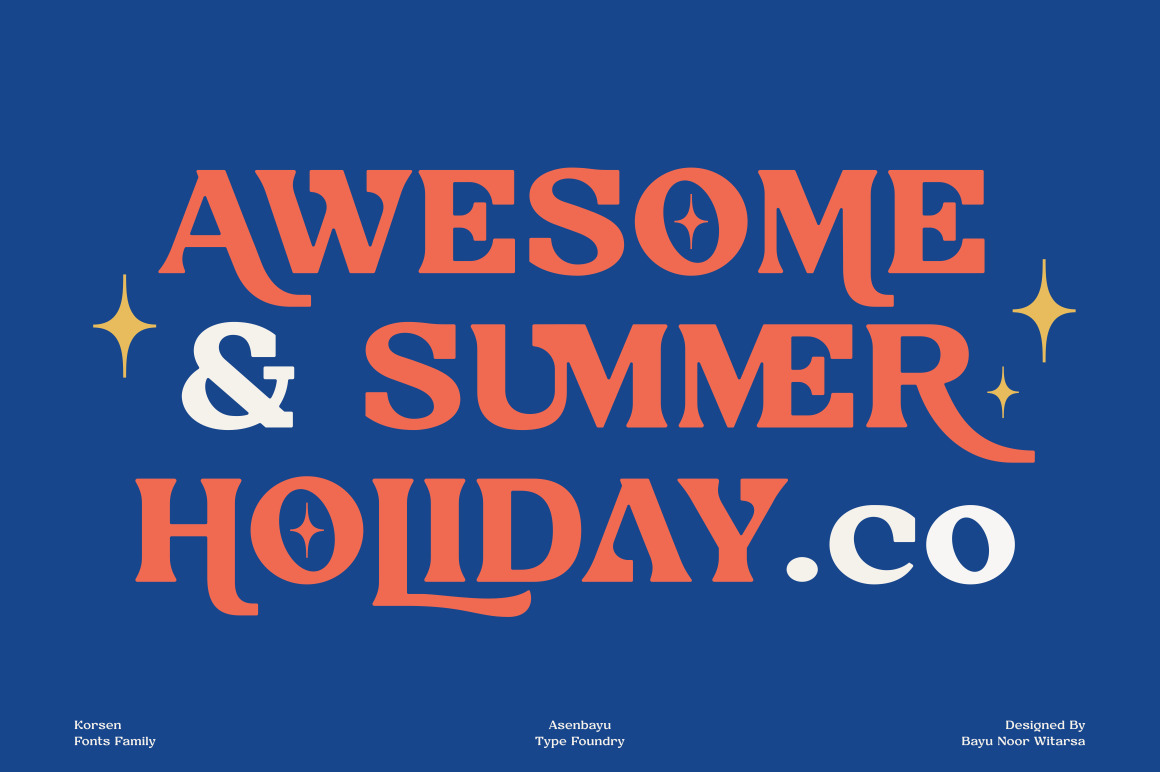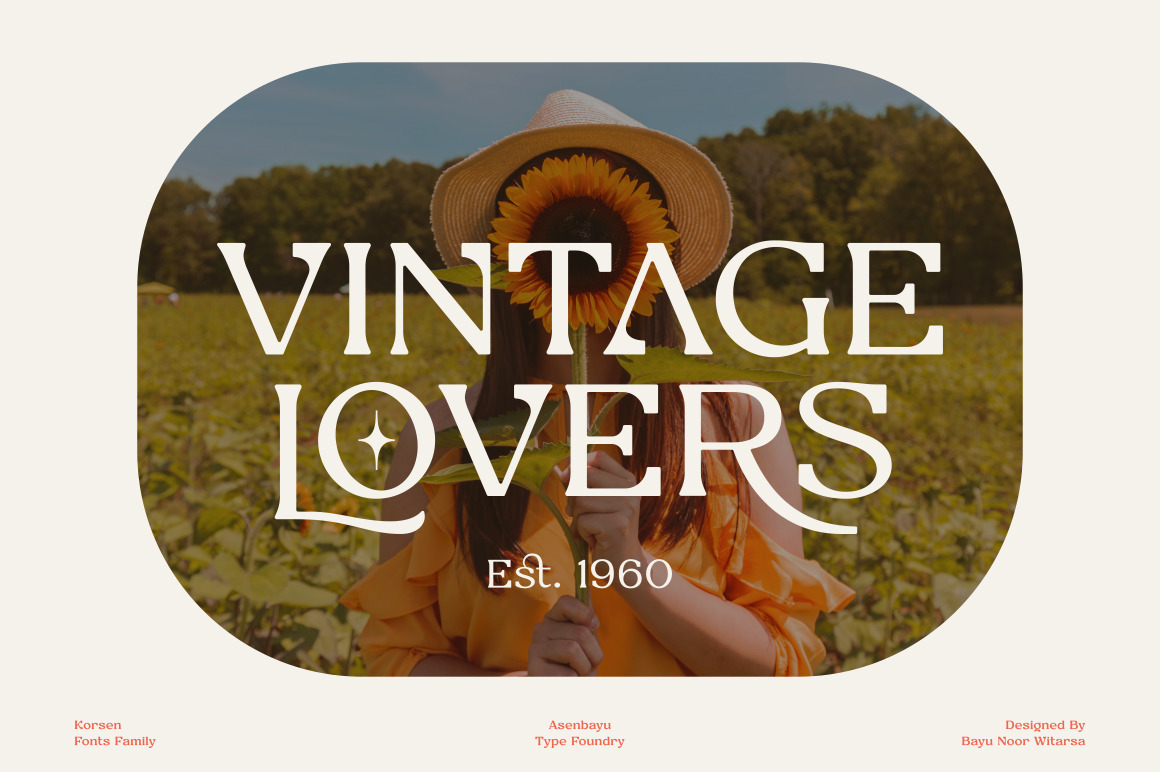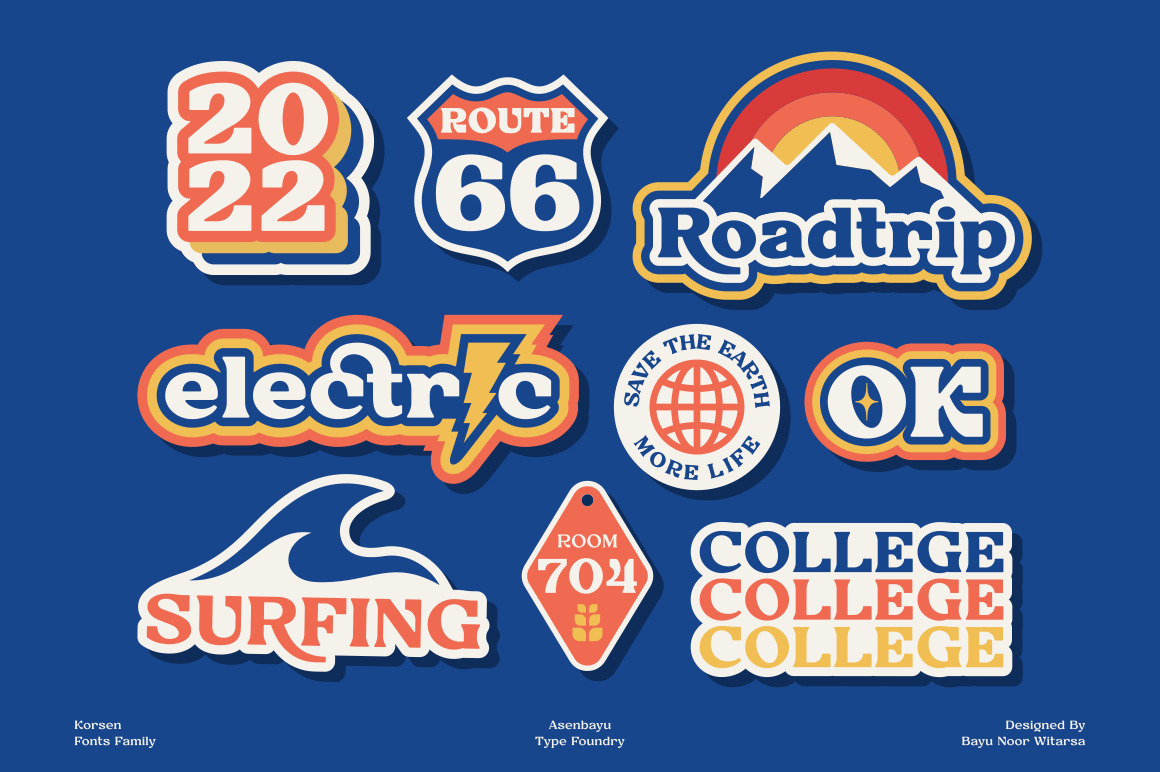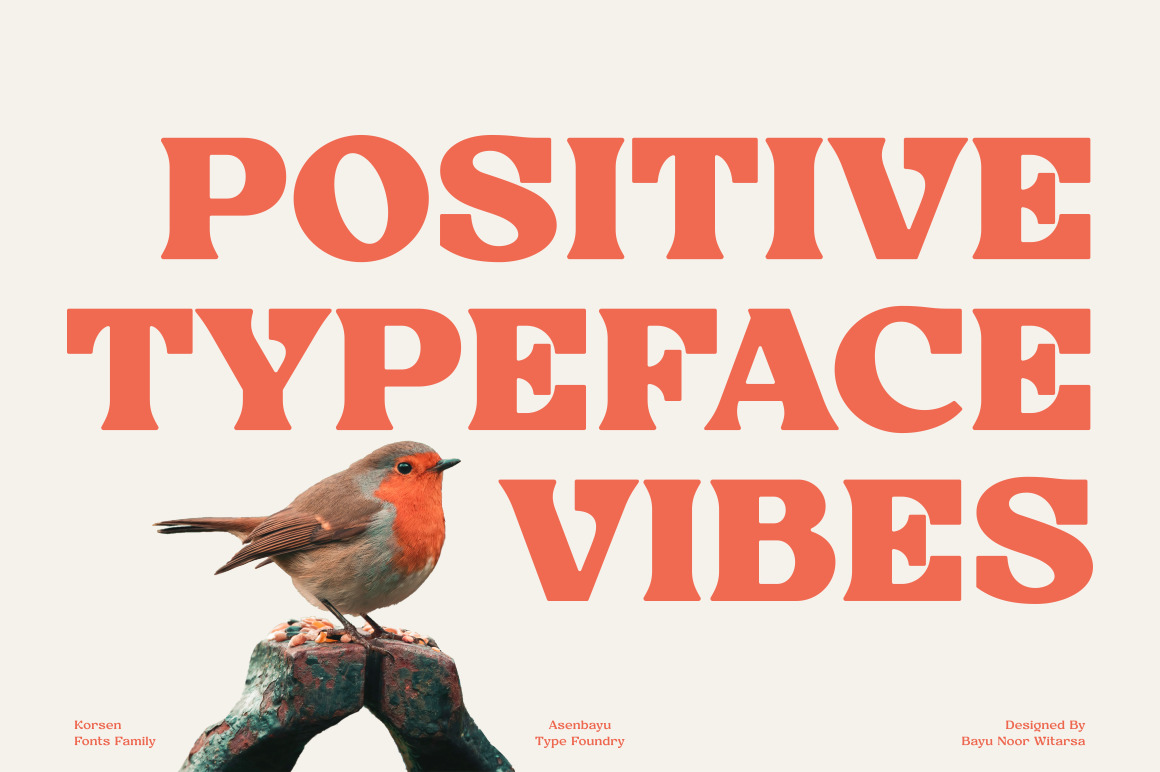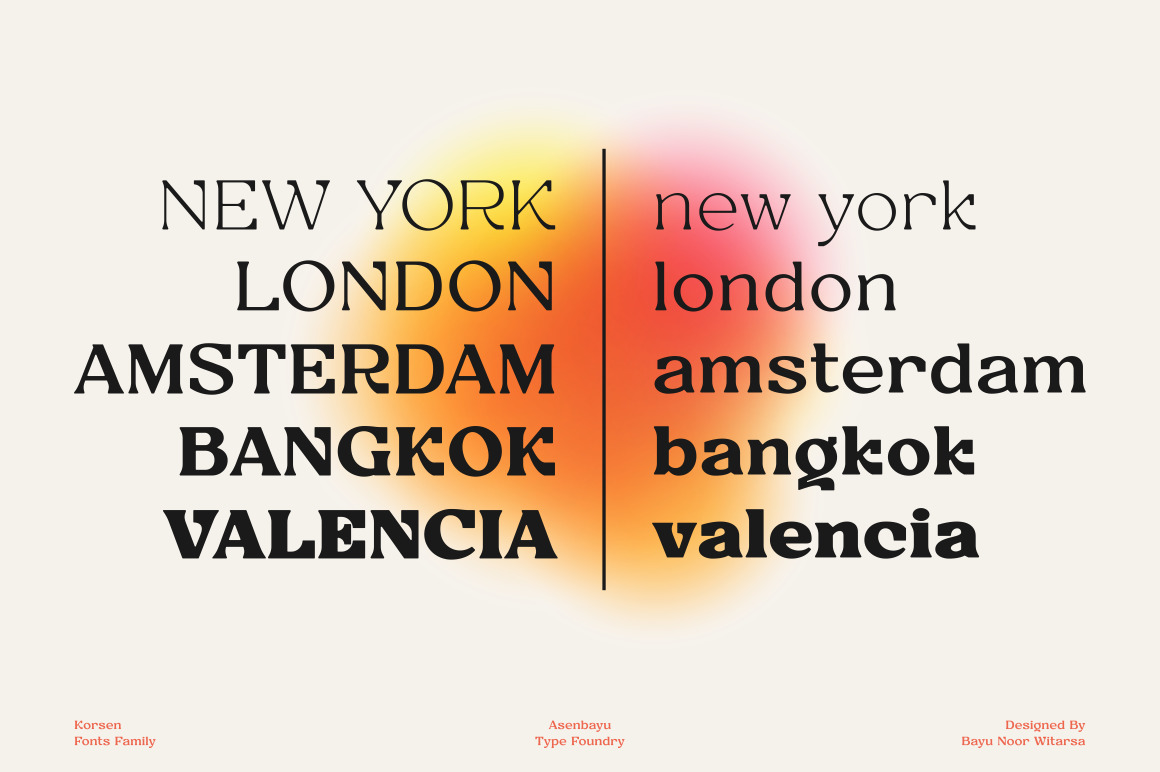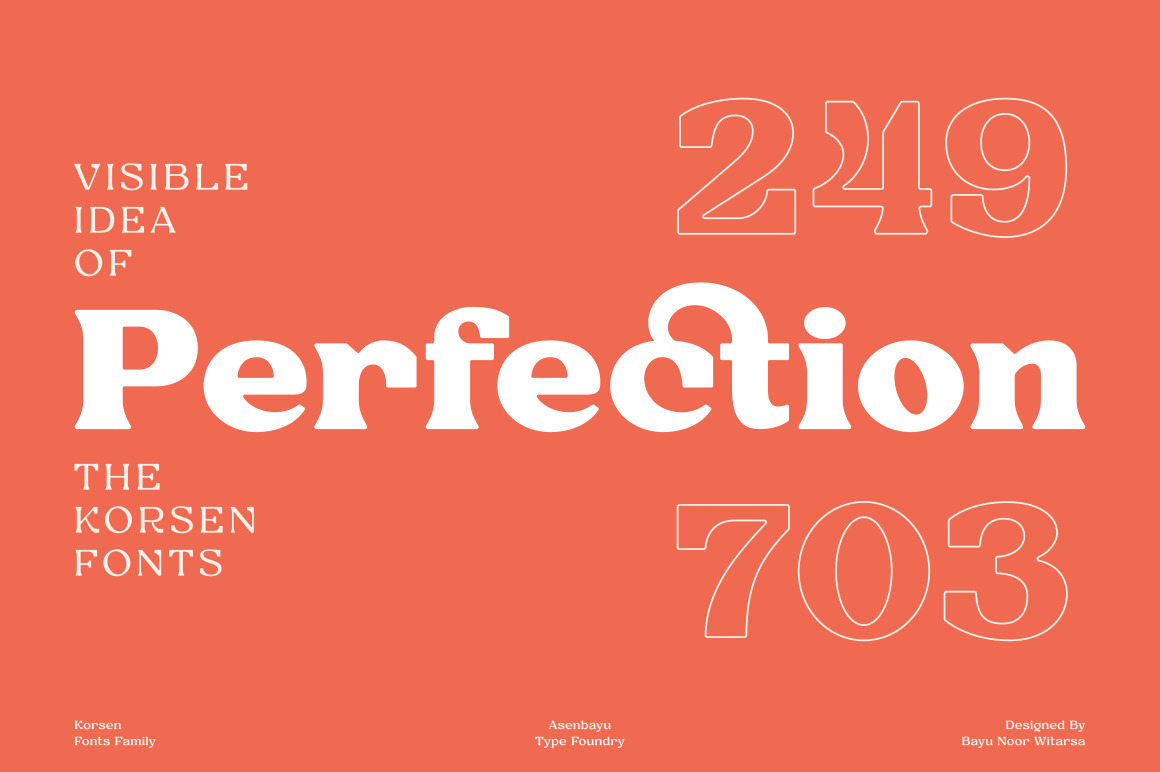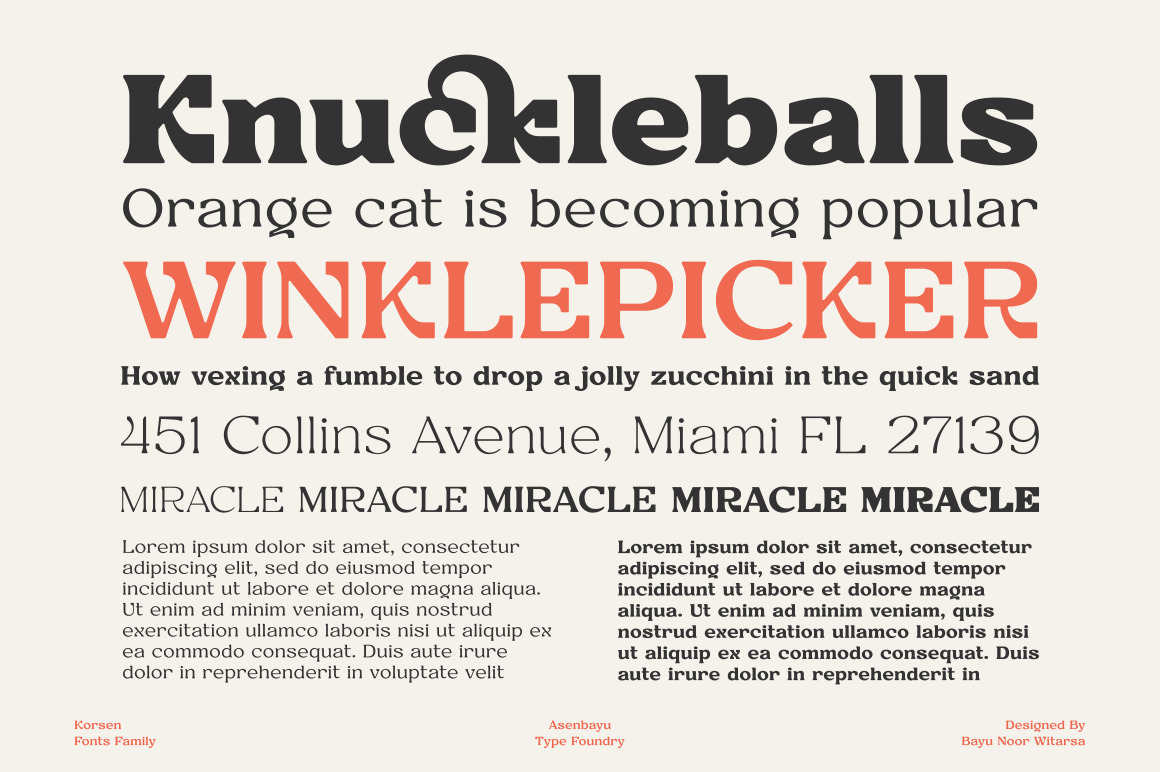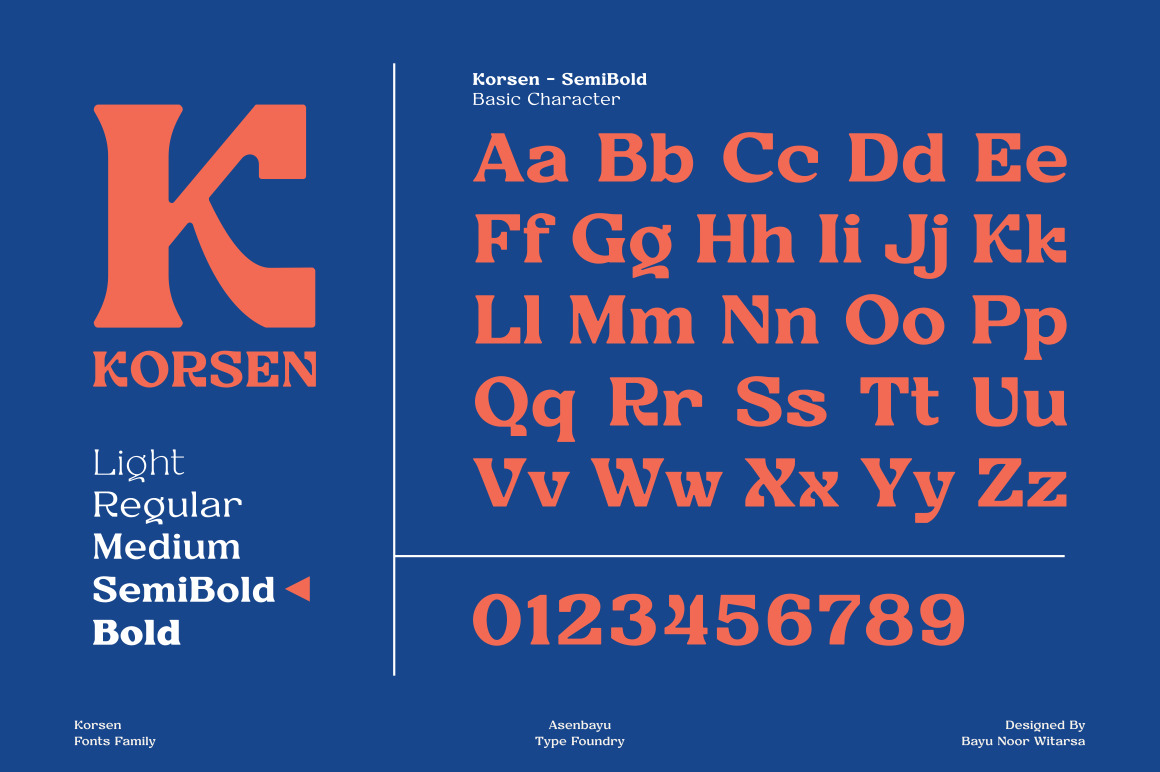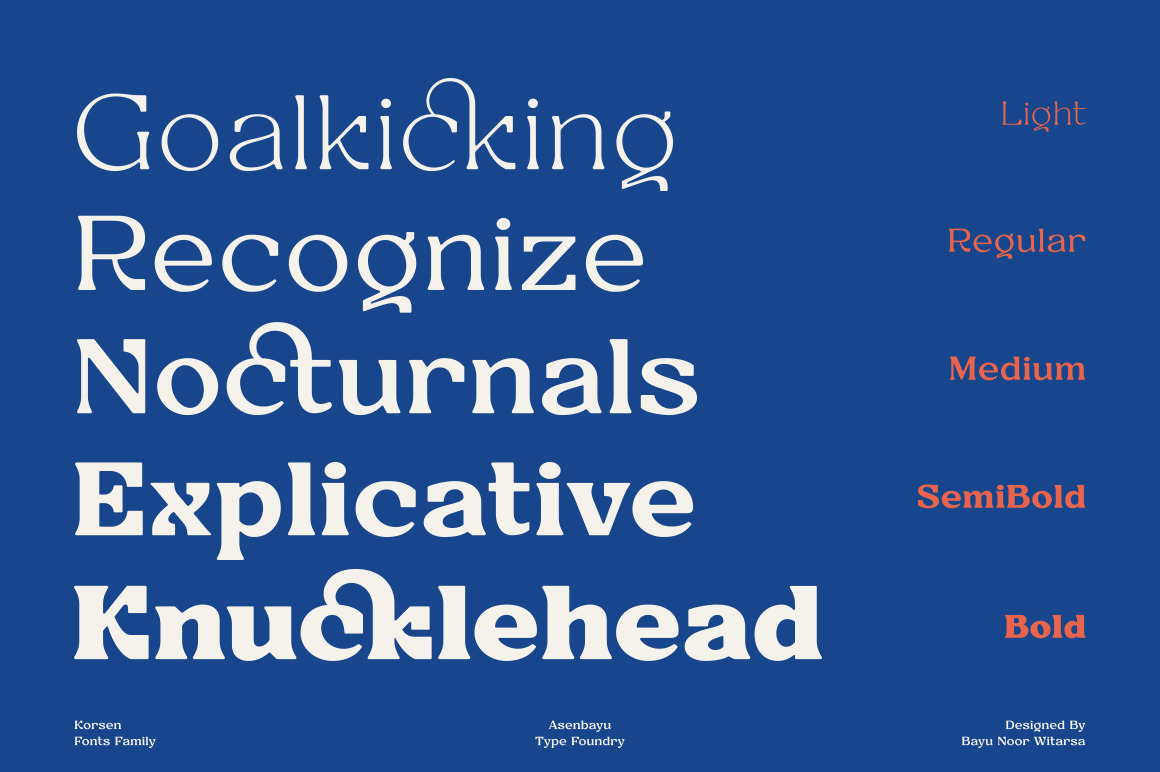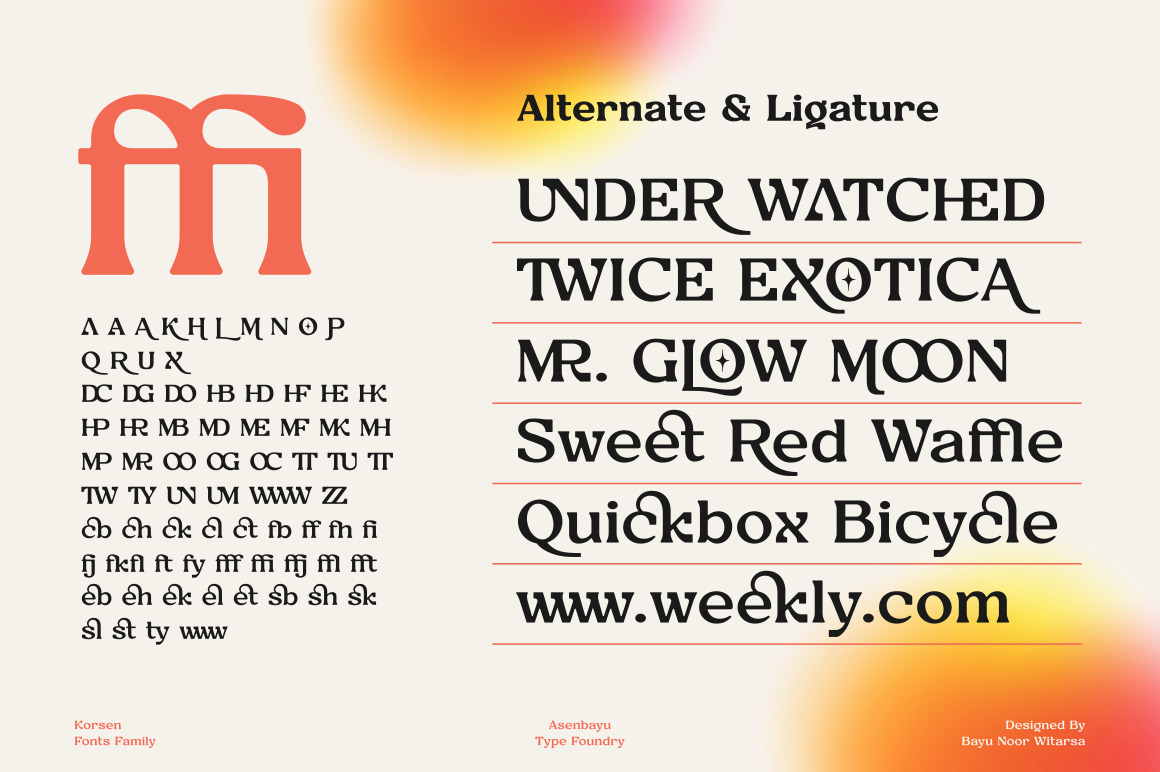
Korsen - Multipurpose Fonts Family
Korsen font is a unique multipurpose font that consists of 5 styles. Korsen font has an attractive appearance which is a combination of serif, slab and decorative fonts. Each letter is carefully crafted with rounded edges. You can use this font for retro, vintage and modern designs. Korsen font can help you complete various projects such as brand logos, headlines, products, social media posts, web and much more.
Korsen fonts features:
- Kerning.
- Uppercase and lowercase letters.
- Ligature and alternate packed in 5 styles: Light, Regular, Medium, SemiBold and Bold.
- Numeral, punctuation and multilingual support.